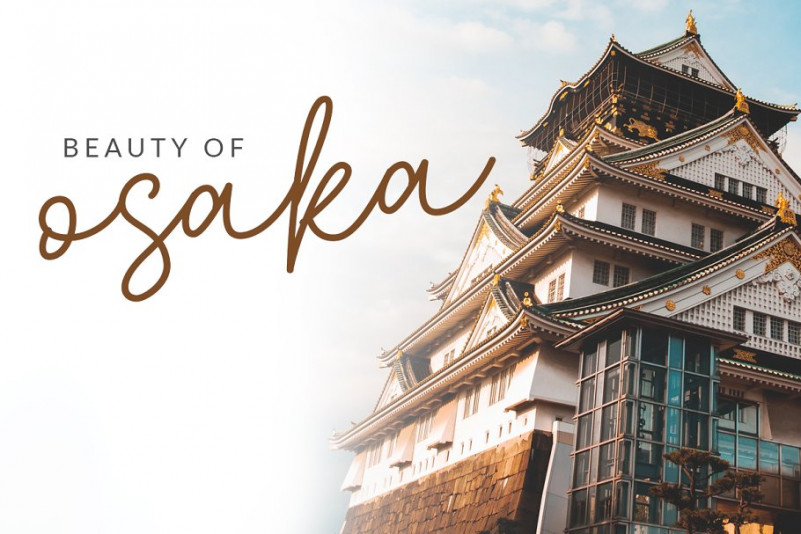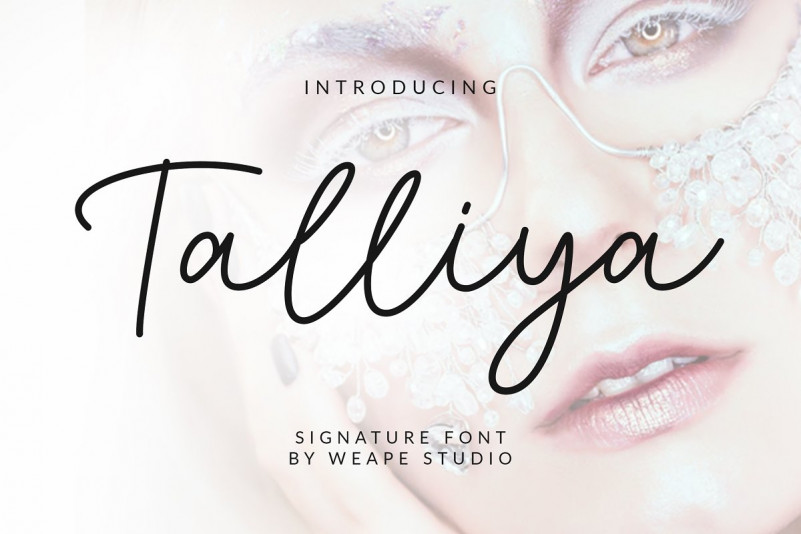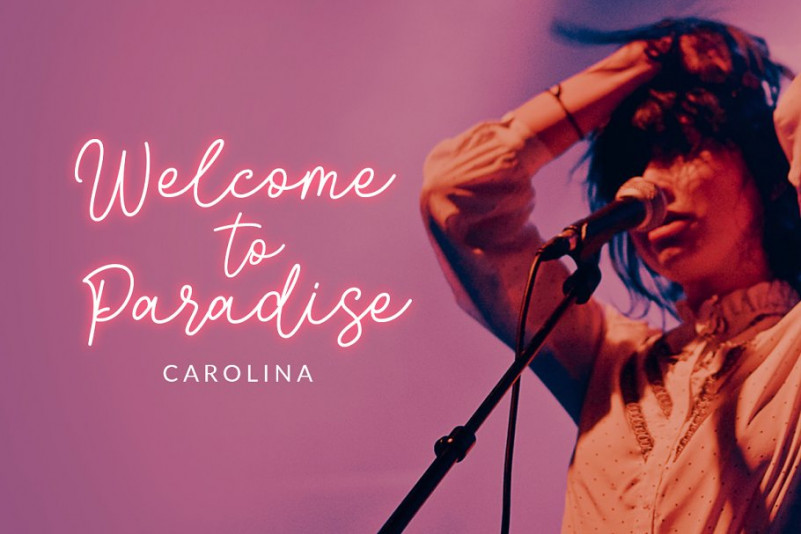
Introducing Talliya Signature Font.
A font with a touch of modern signature style useful to beautify every sentence written.
Talliya is built with Opentype features with additional ligatures and multilingual support.